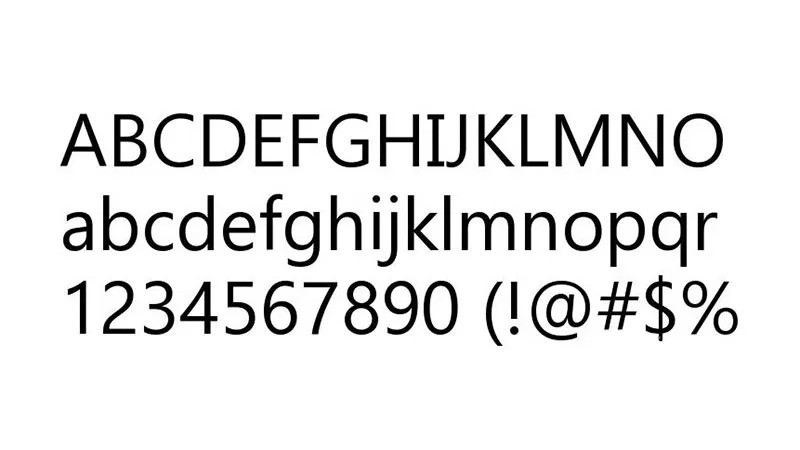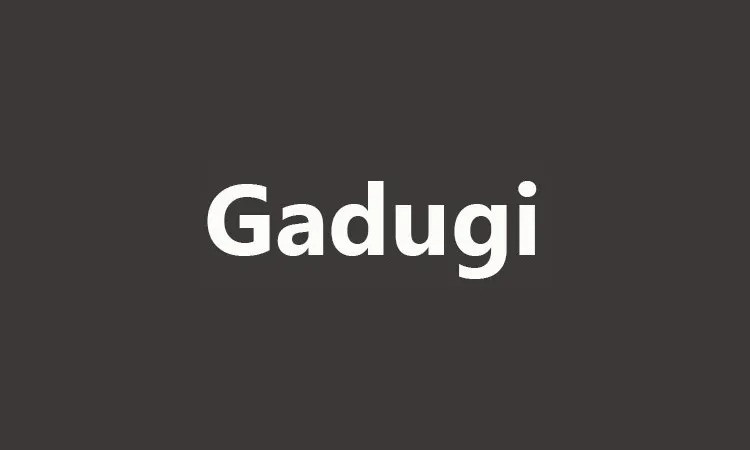
Gadugi Font
Gadugi Sans Serif Font is the most popular web or print media font family. Just because of it’s sans serif appearance is commonly used to display and long paragraph purposes. It becomes a trademark of the Microsoft Corporation. And Microsoft has released it for the first in 2012. After that everyone trying to work with it in their projects.